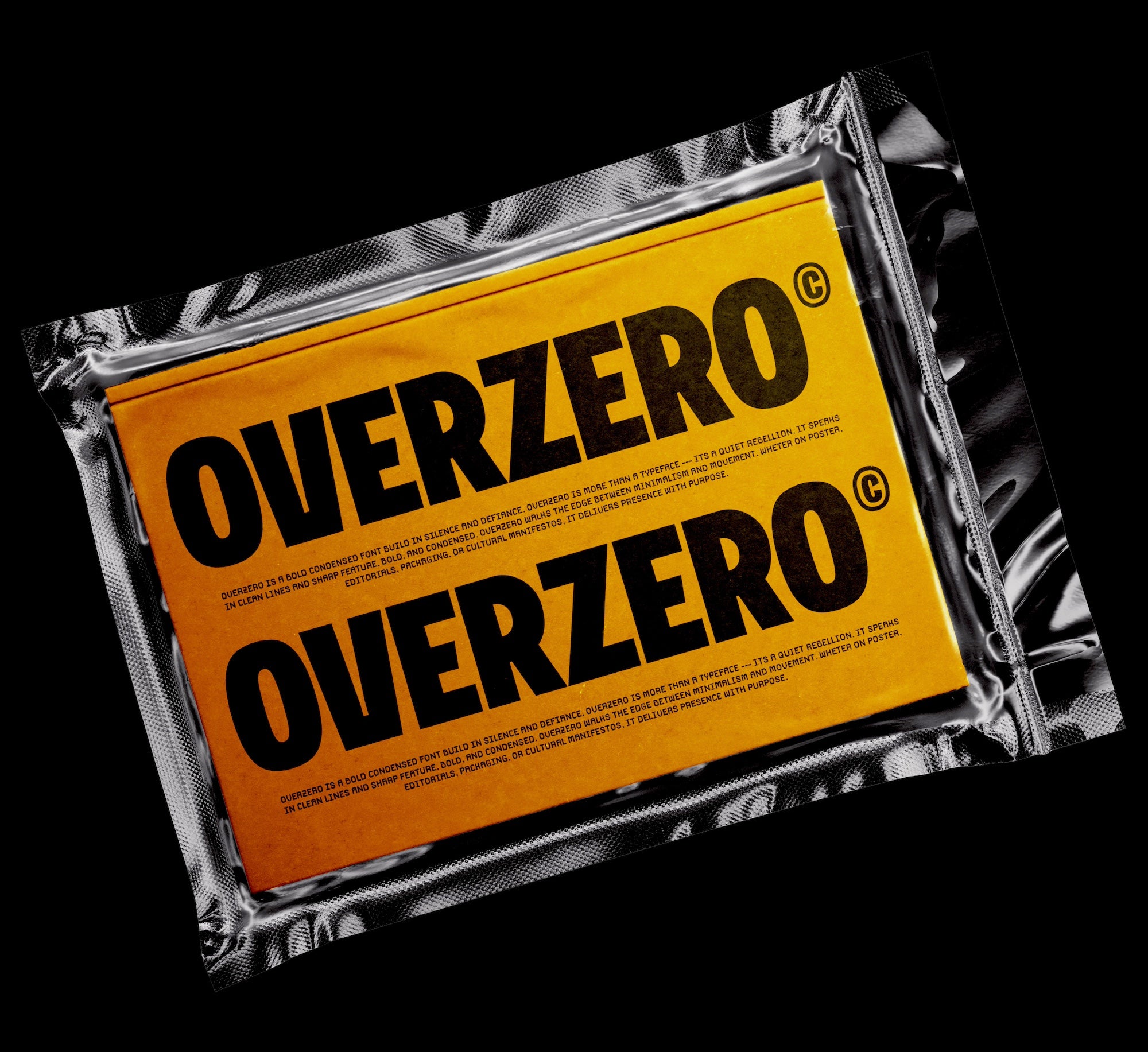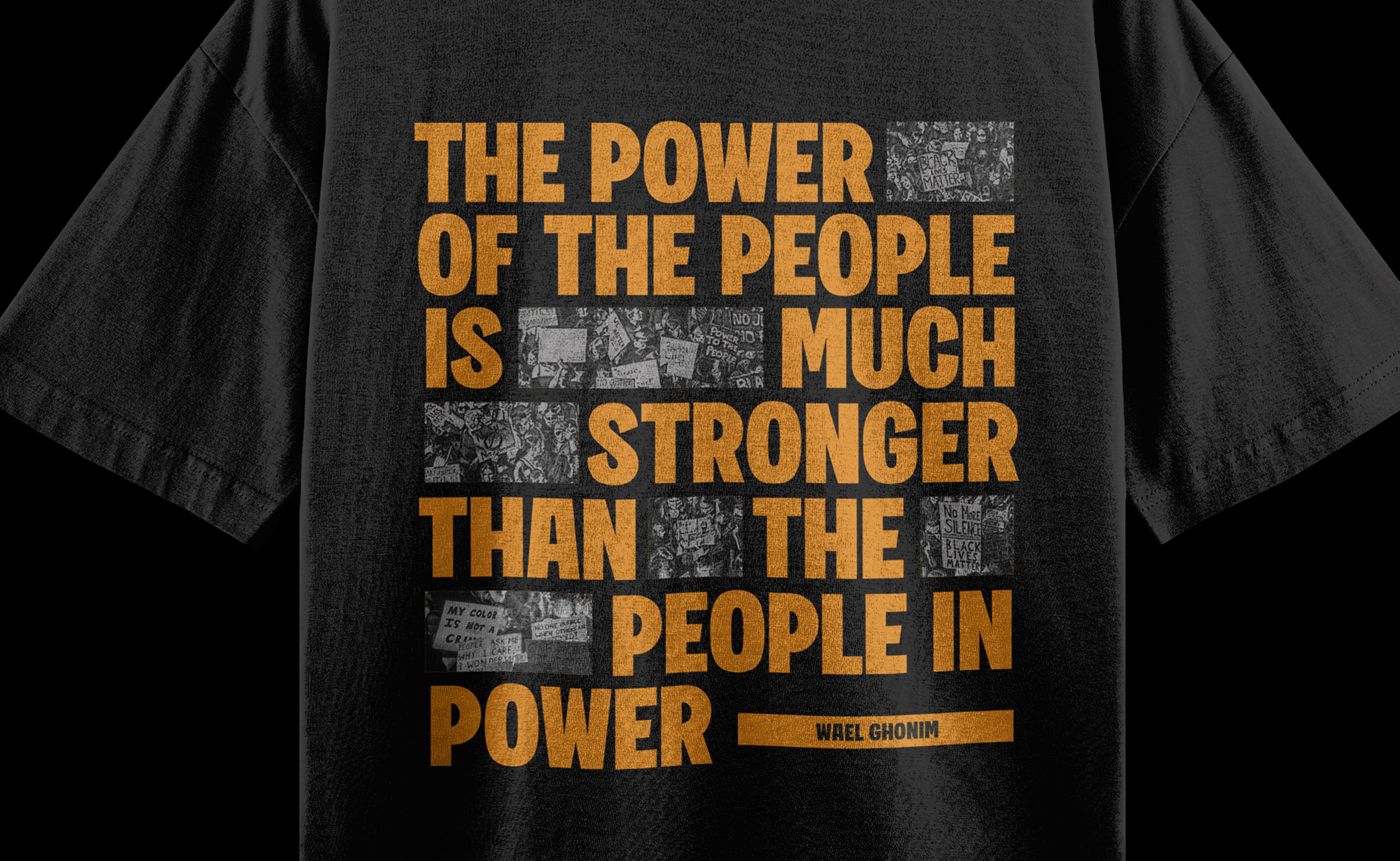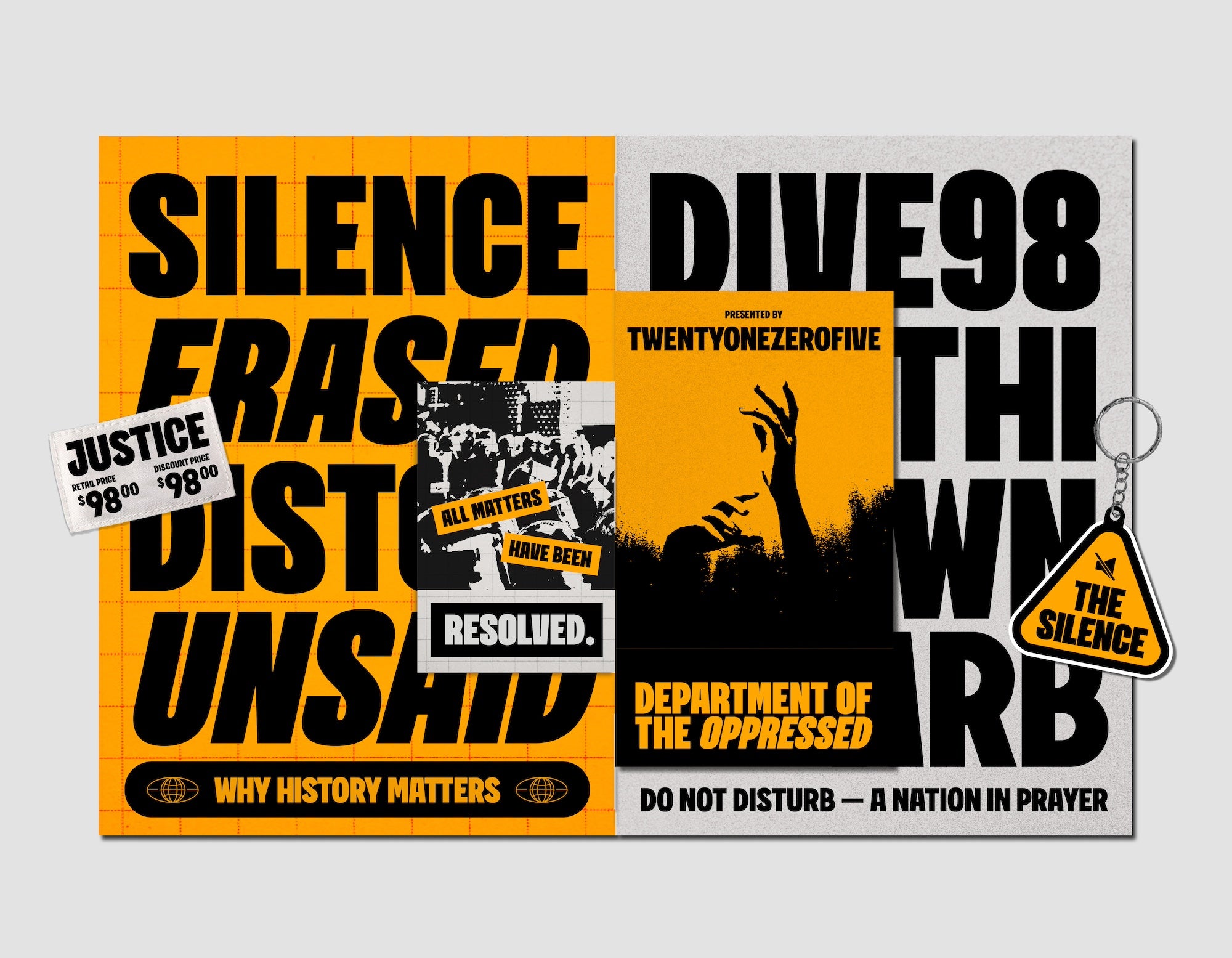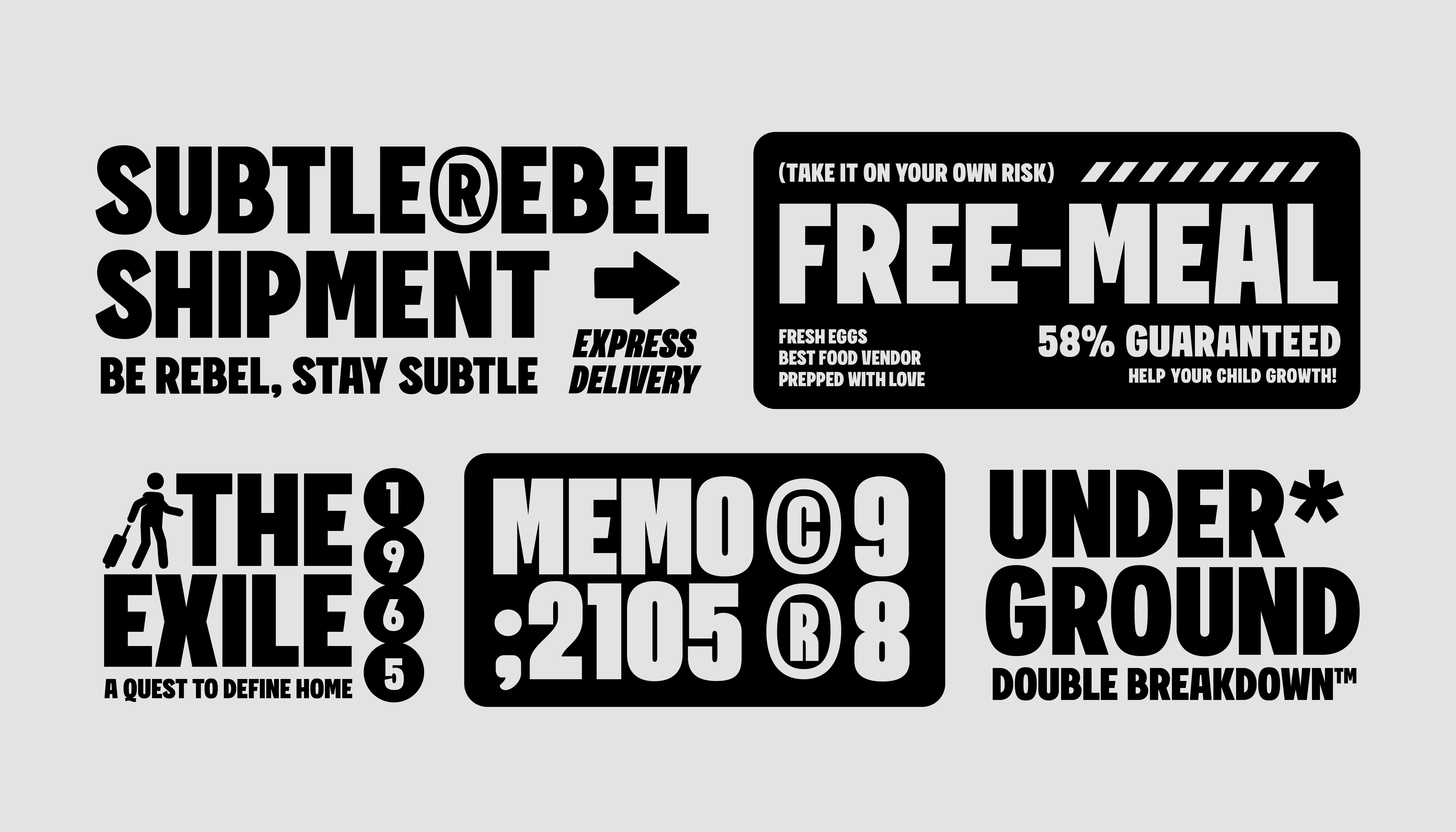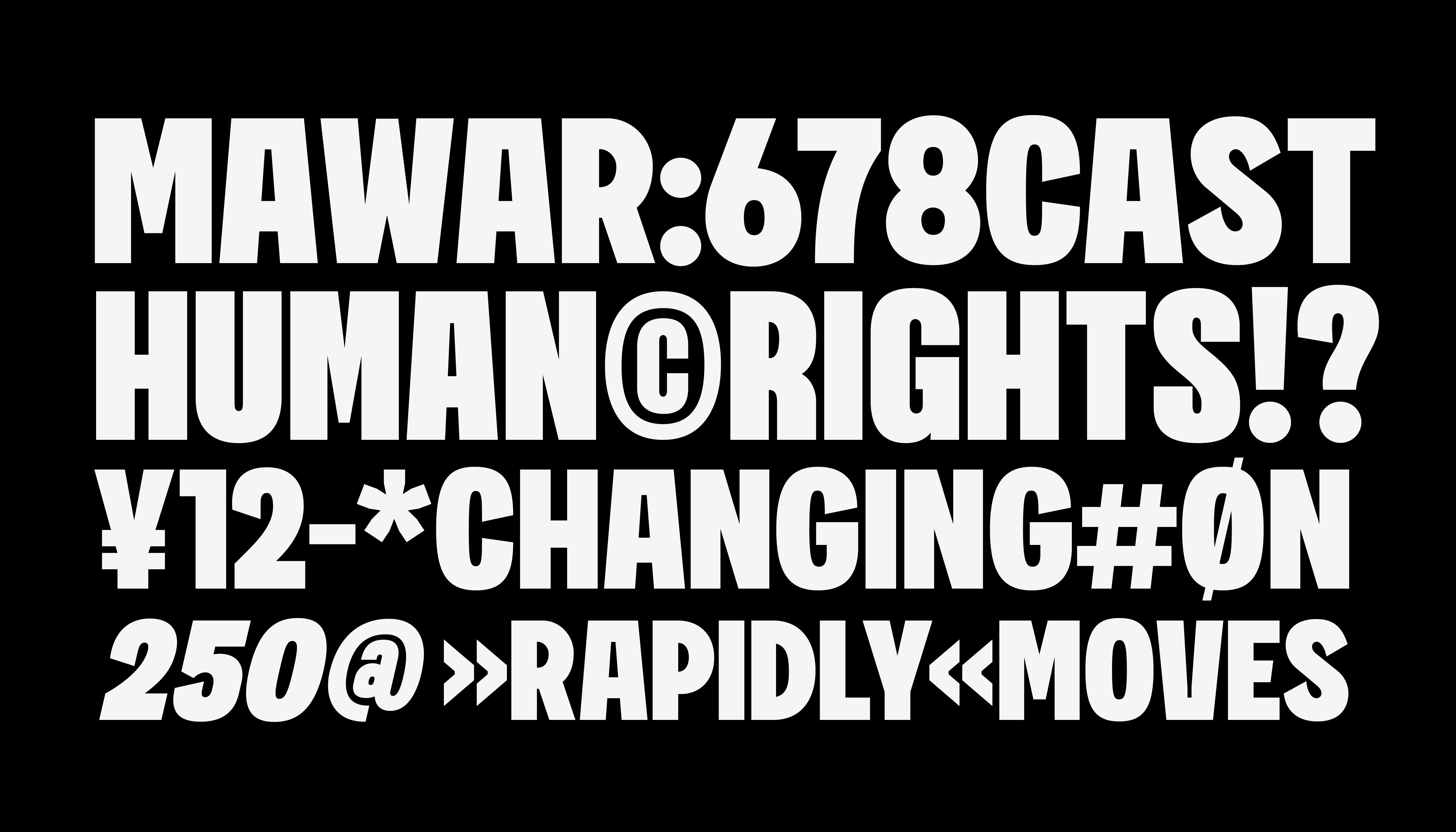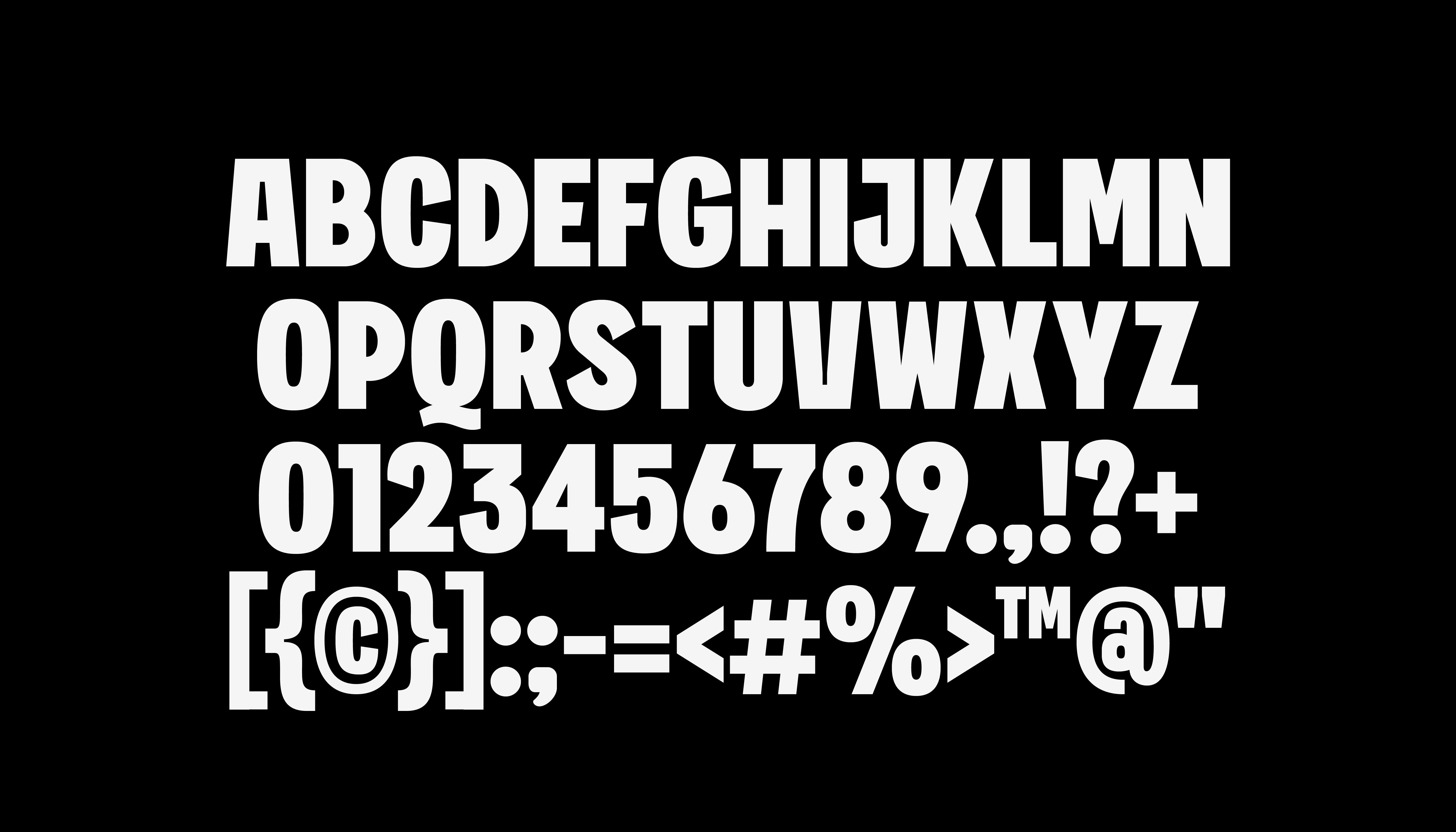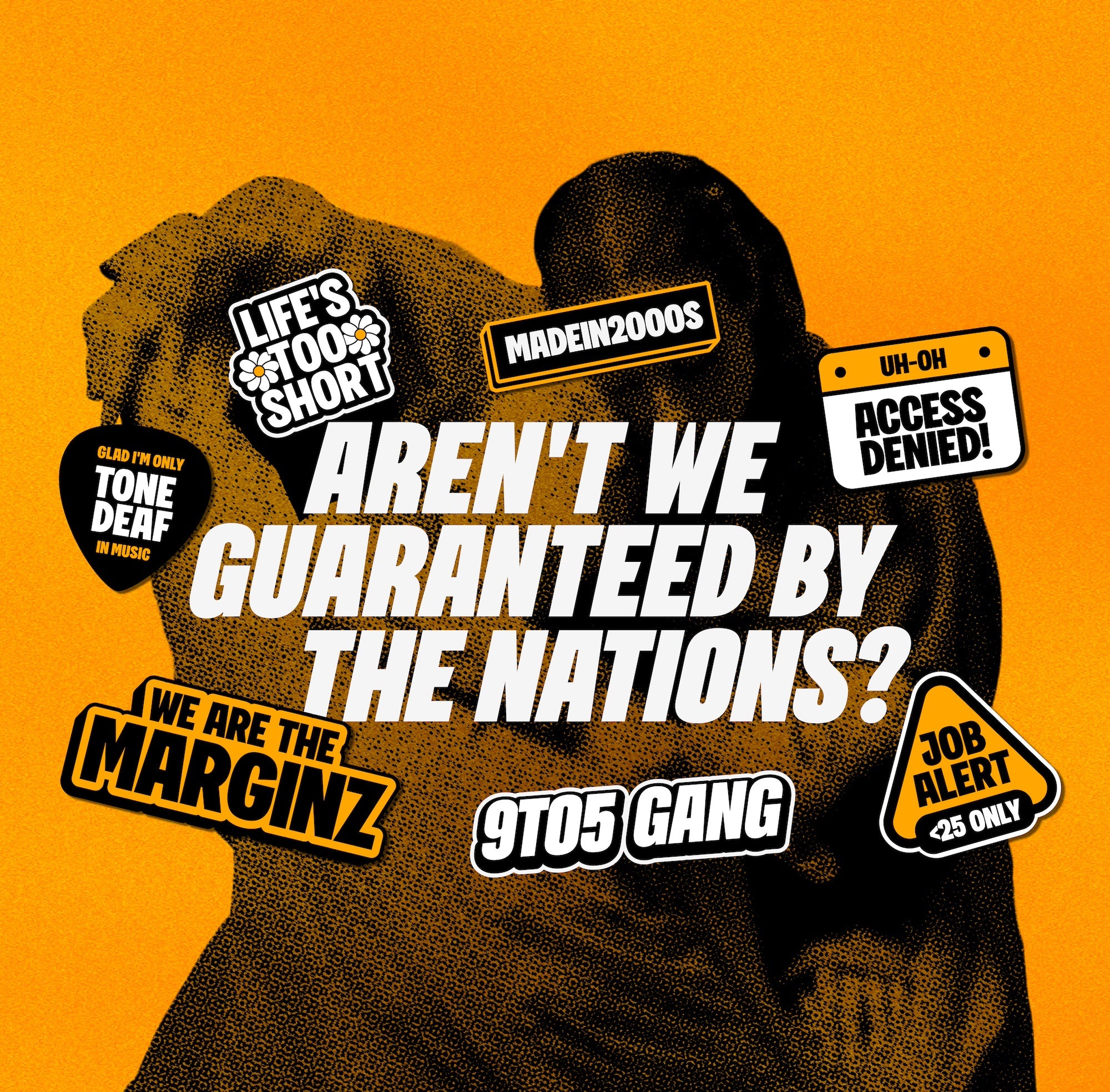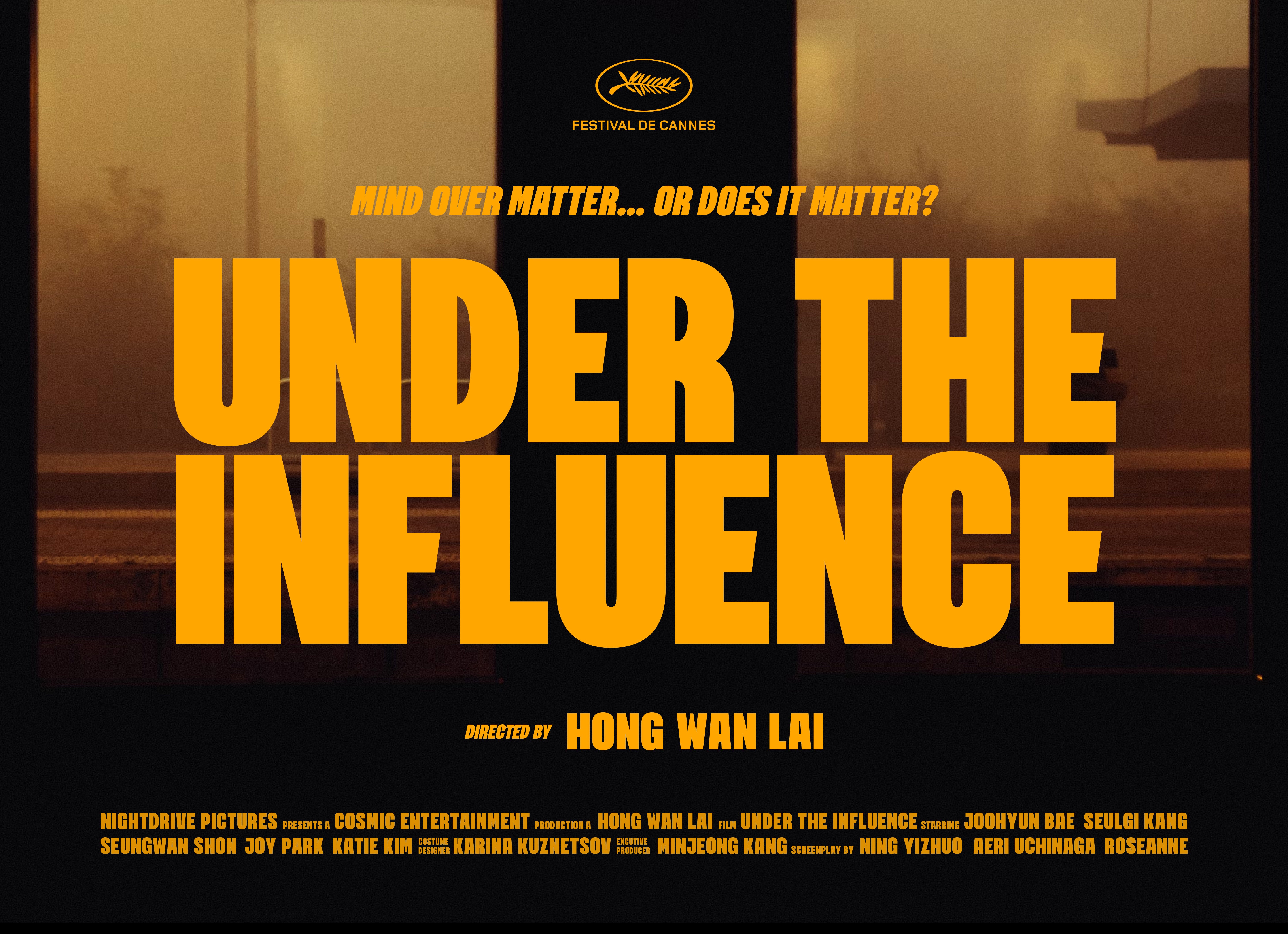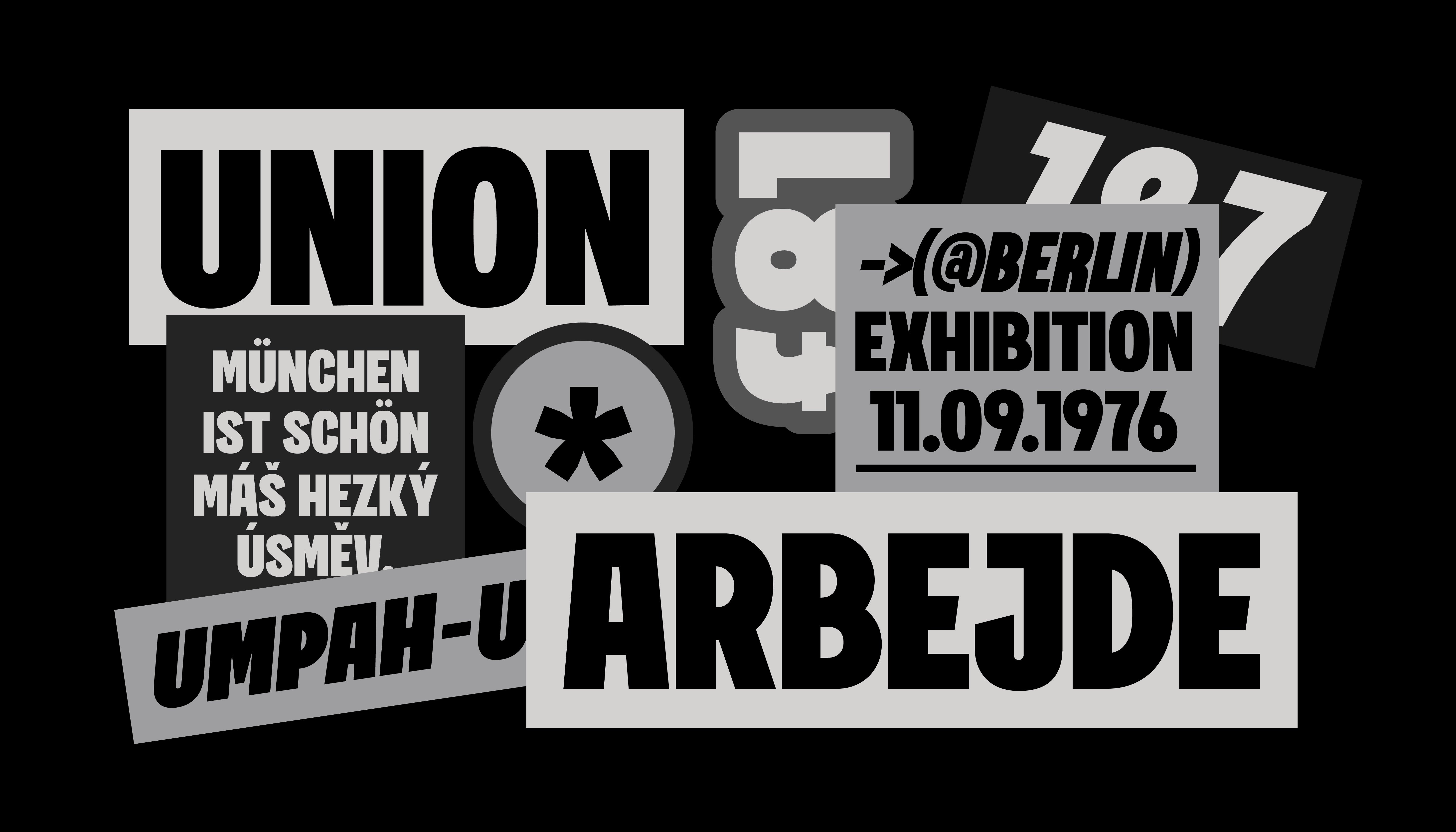
Overzero - Bold Condensed Type
Overzero is a bold condensed typeface built to command attention in large-scale visuals—perfect for headlines, posters, editorials, and any design that needs to stand out.
With a versatile family, Overzero offers both impact and flexibility across styles. Its condensed structure delivers maximum presence without compromising readability, while multilingual support ensures your message crosses borders seamlessly.
Designed to be loud, clear, and unapologetically bold, Overzero brings sharp energy to any visual identity.